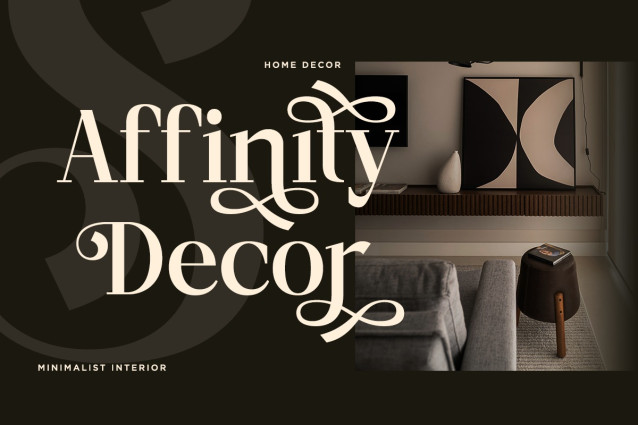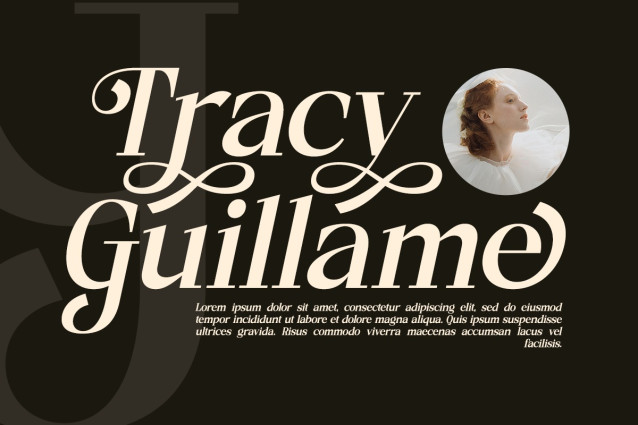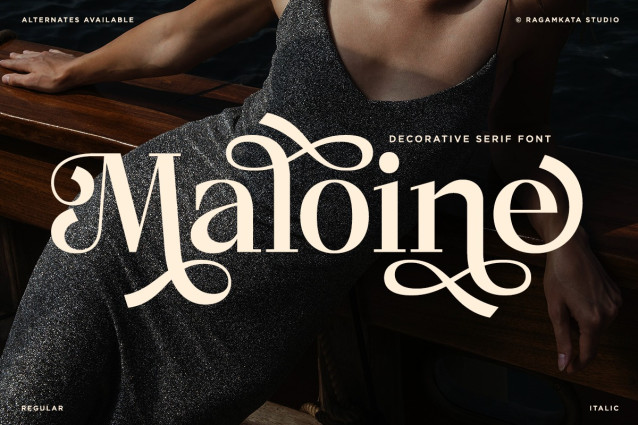
Maloine Font
Maloine Font is a timeless display serif typeface that combines classic refinement with graceful modern touches. Crafted to echo the artistry of vintage lettering, each character features smooth curves, subtle swashes, and striking contrast — ideal for brands seeking beauty, sophistication, and personality. Drawing inspiration from historic typography and the romantic feel of botanical interiors, Maoline brings a rich vintage atmosphere to any project. Whether you’re designing refined logotypes, packaging, wedding stationery, perfume labels, or editorial titles, this font enhances your work with a gentle, poetic charm.